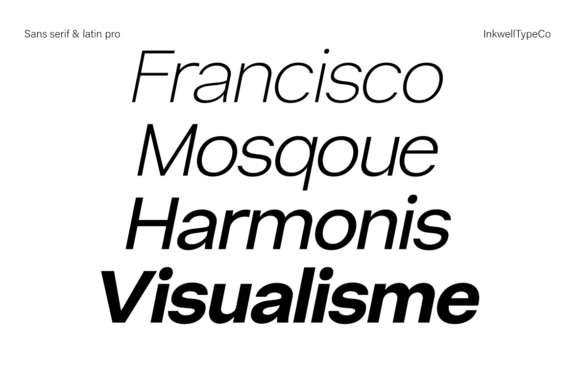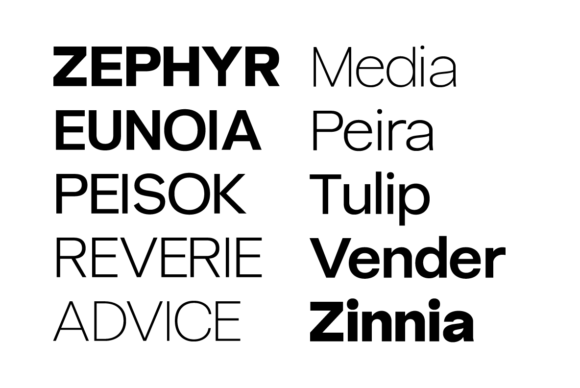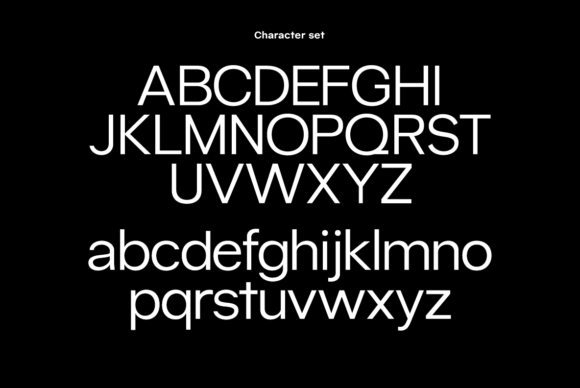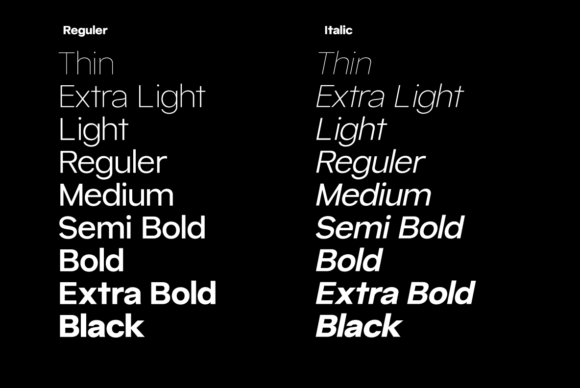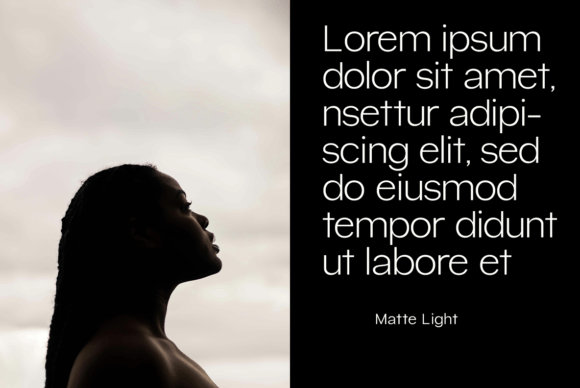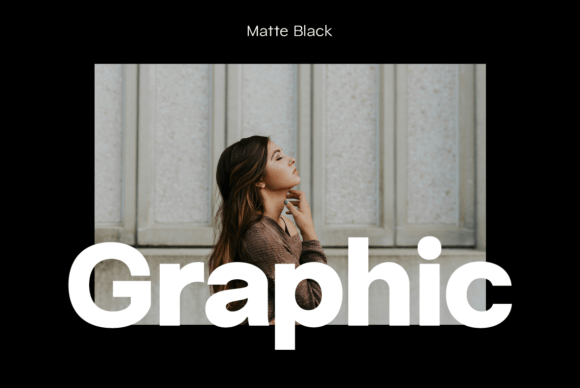
Introduction to Matte Font
Matte is a font family that combines boldness with modern design cleanliness.
Designed with clarity and precision, Matte offers versatile beauty, making it an ideal choice for a variety of design needs .
Key Features of Matte Font
Why Choose Matte Font?